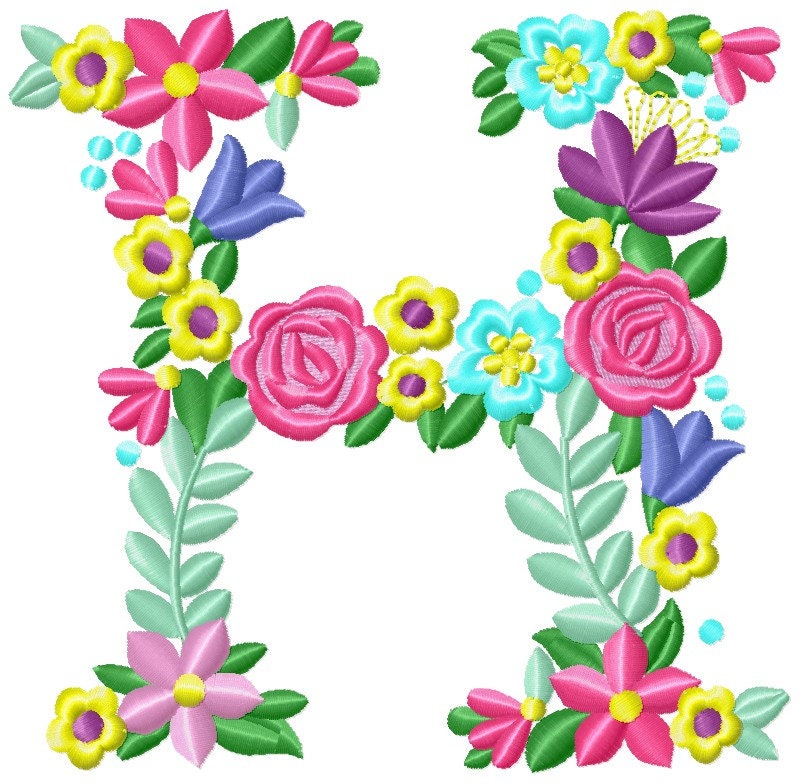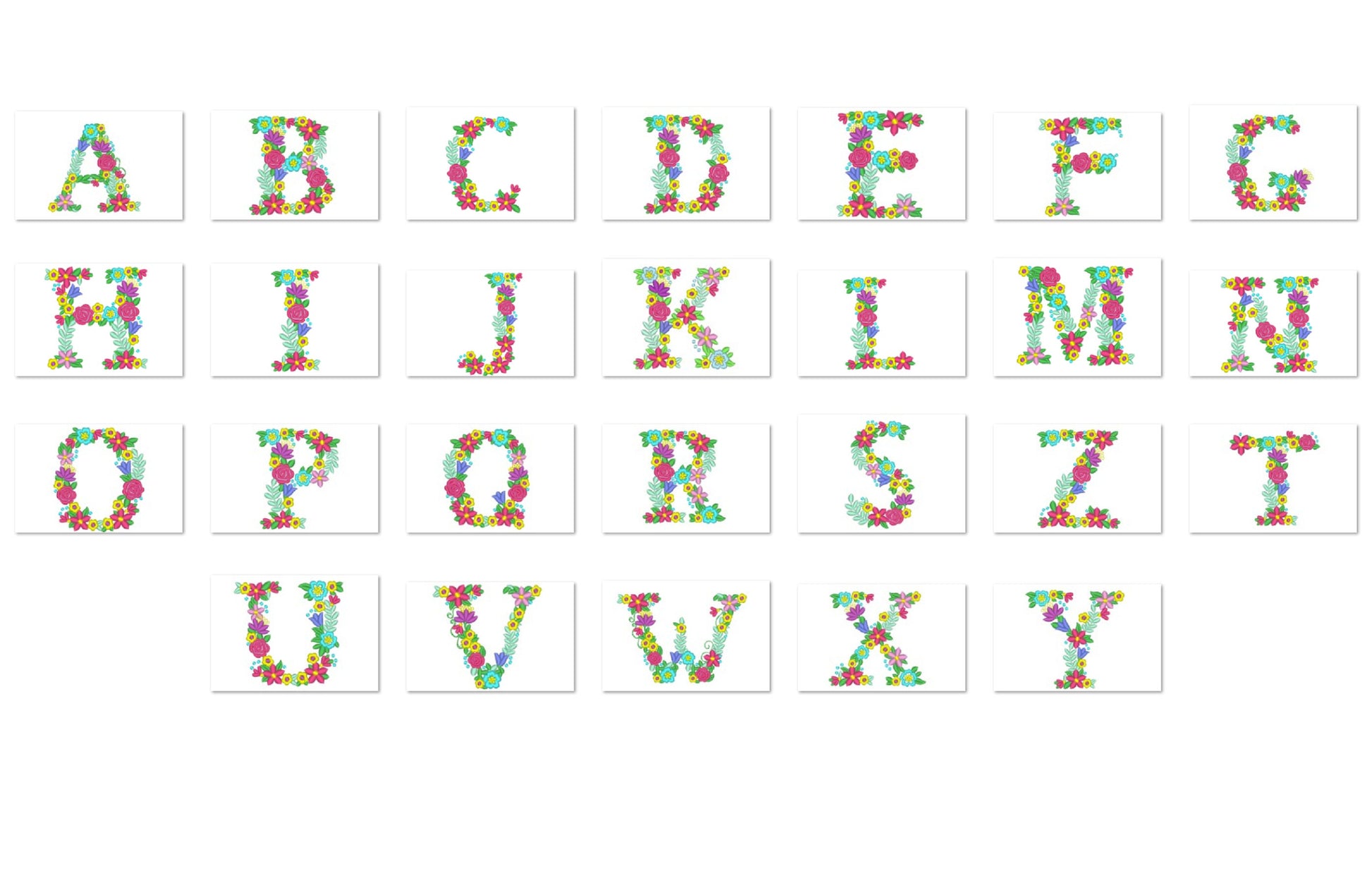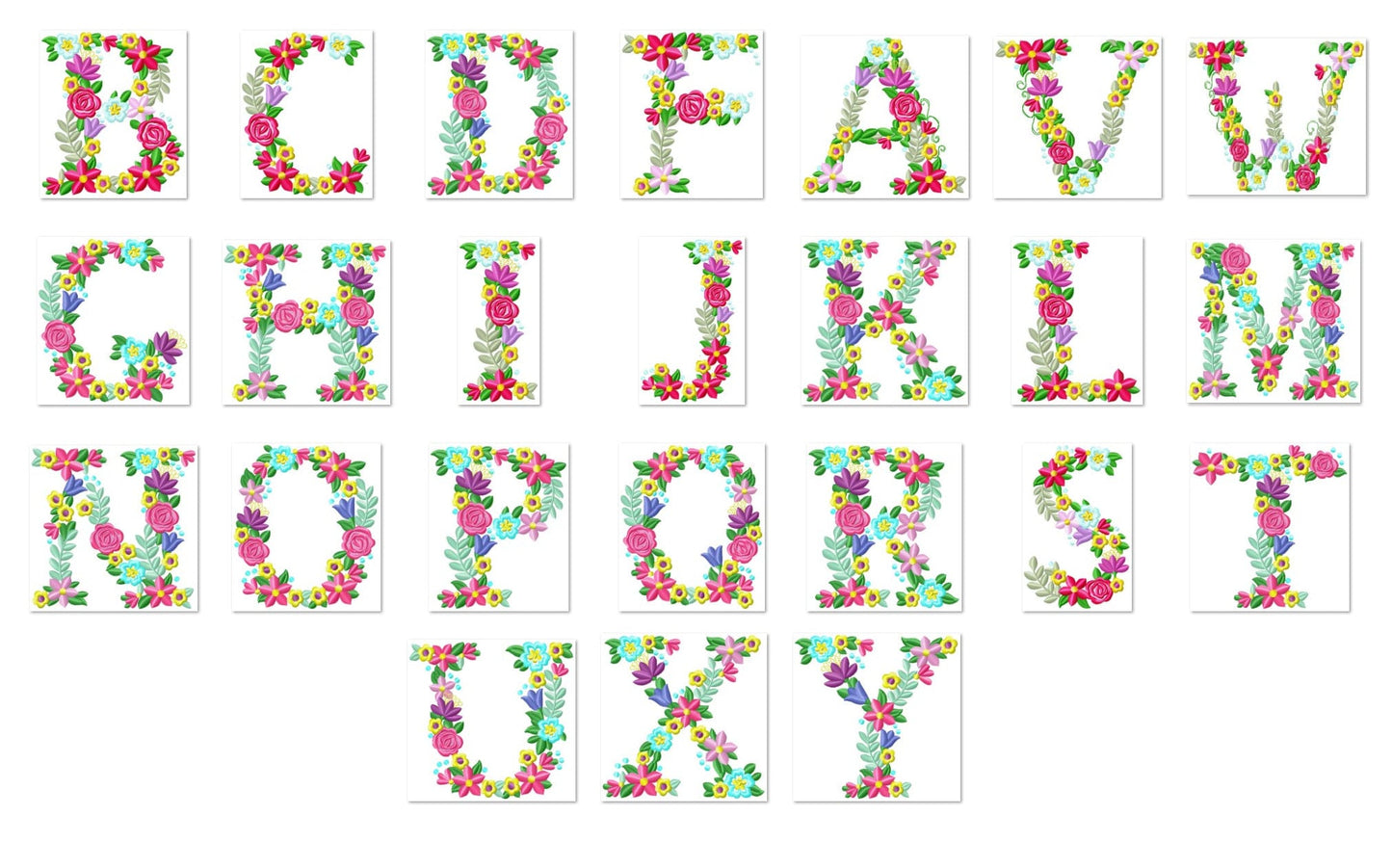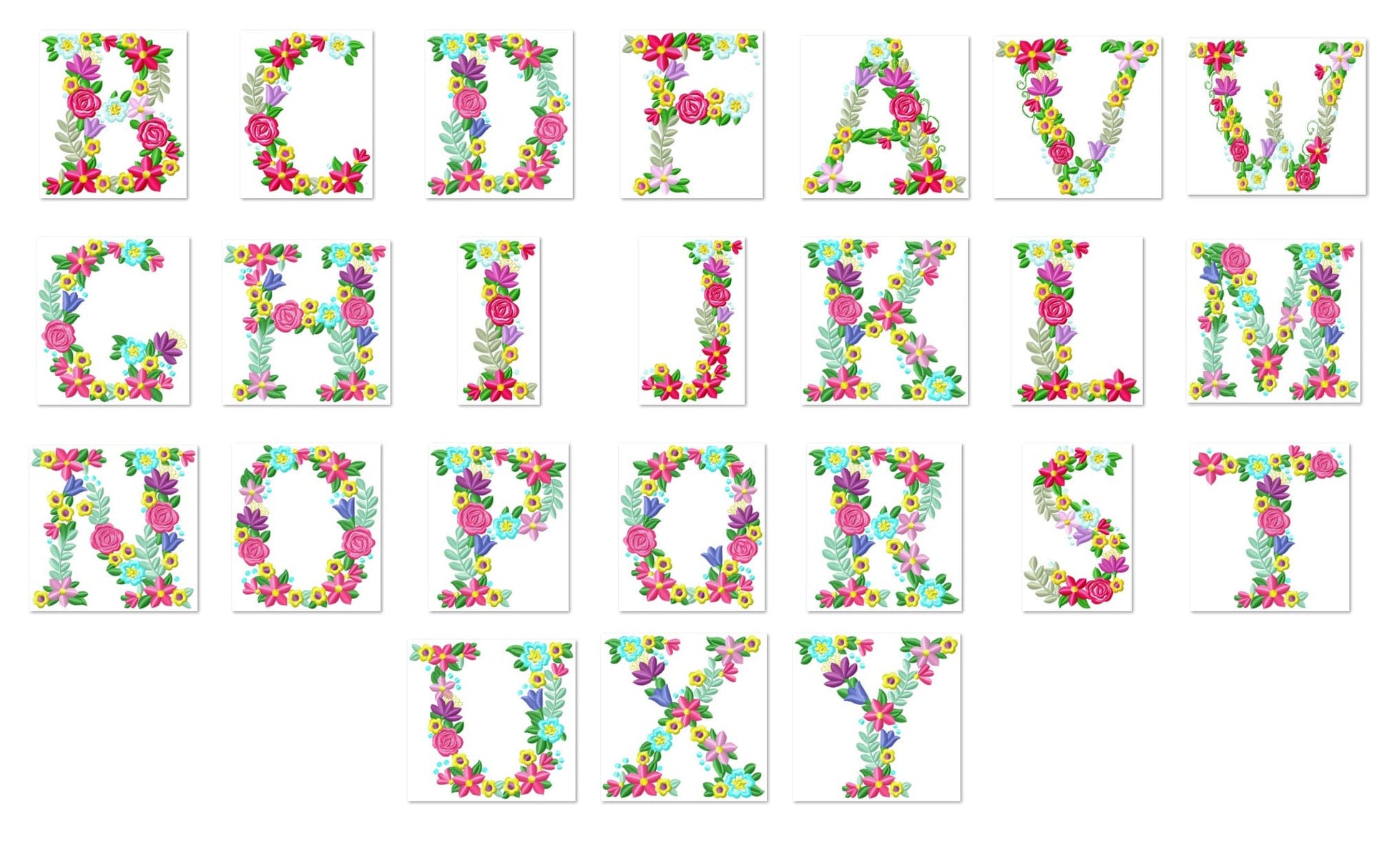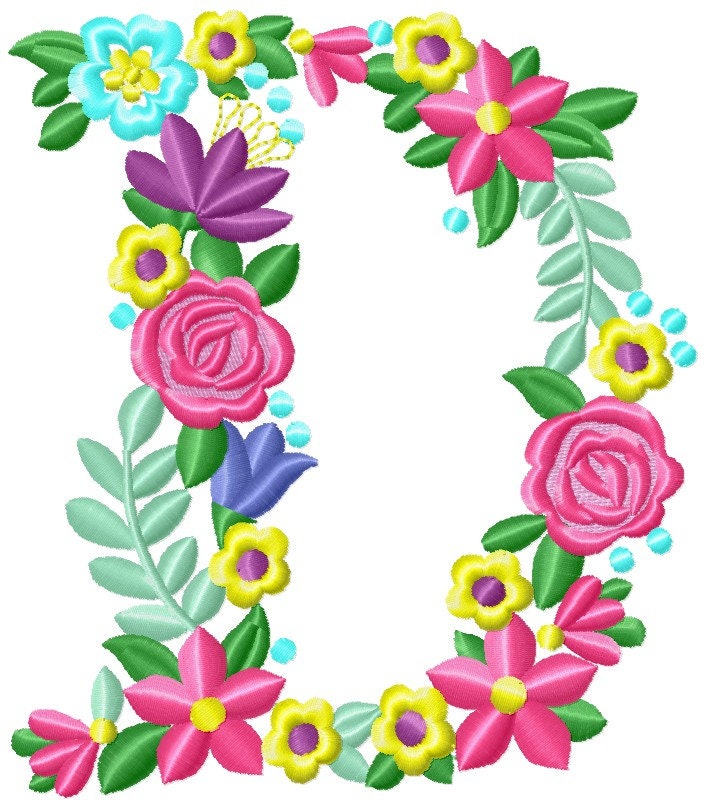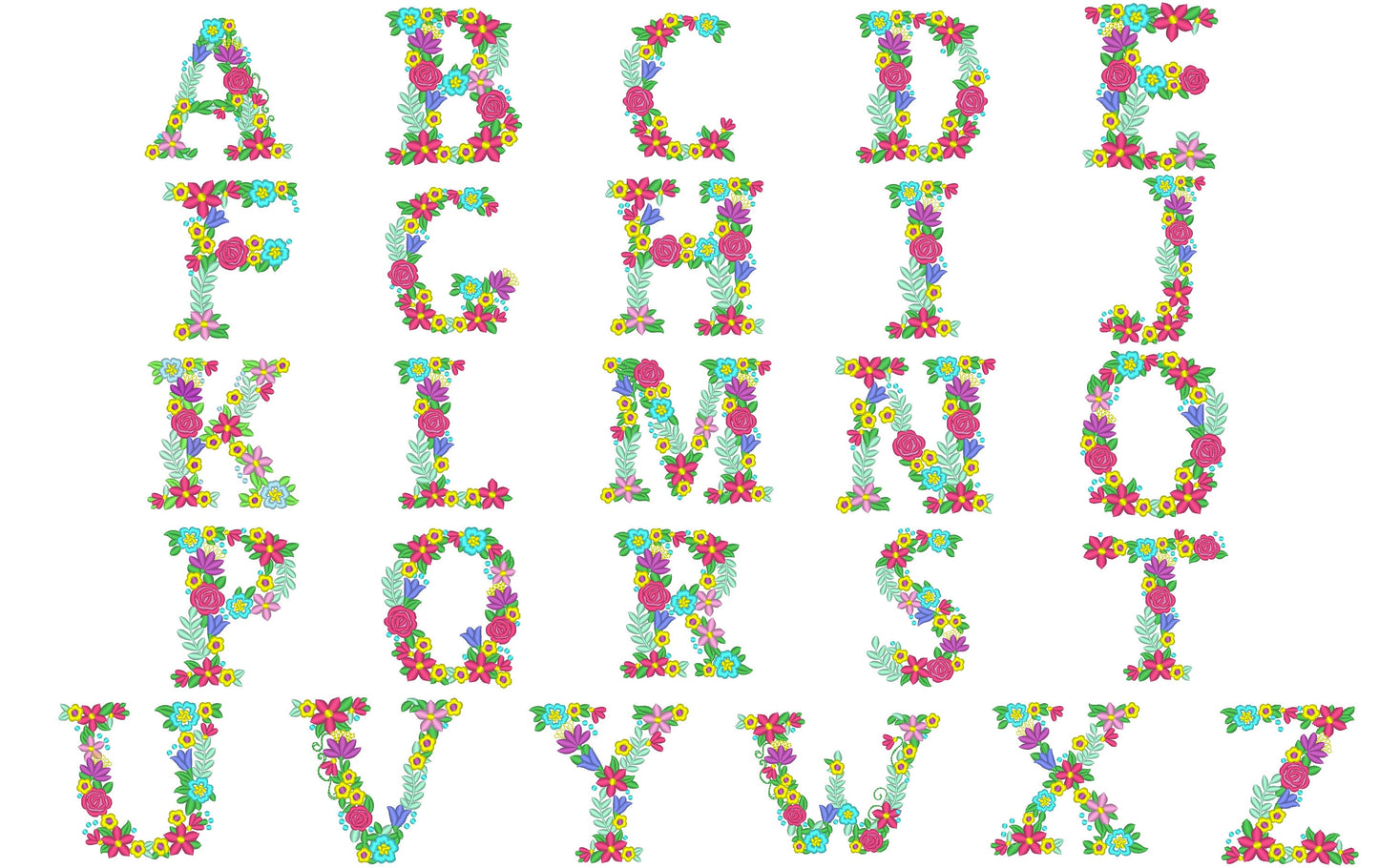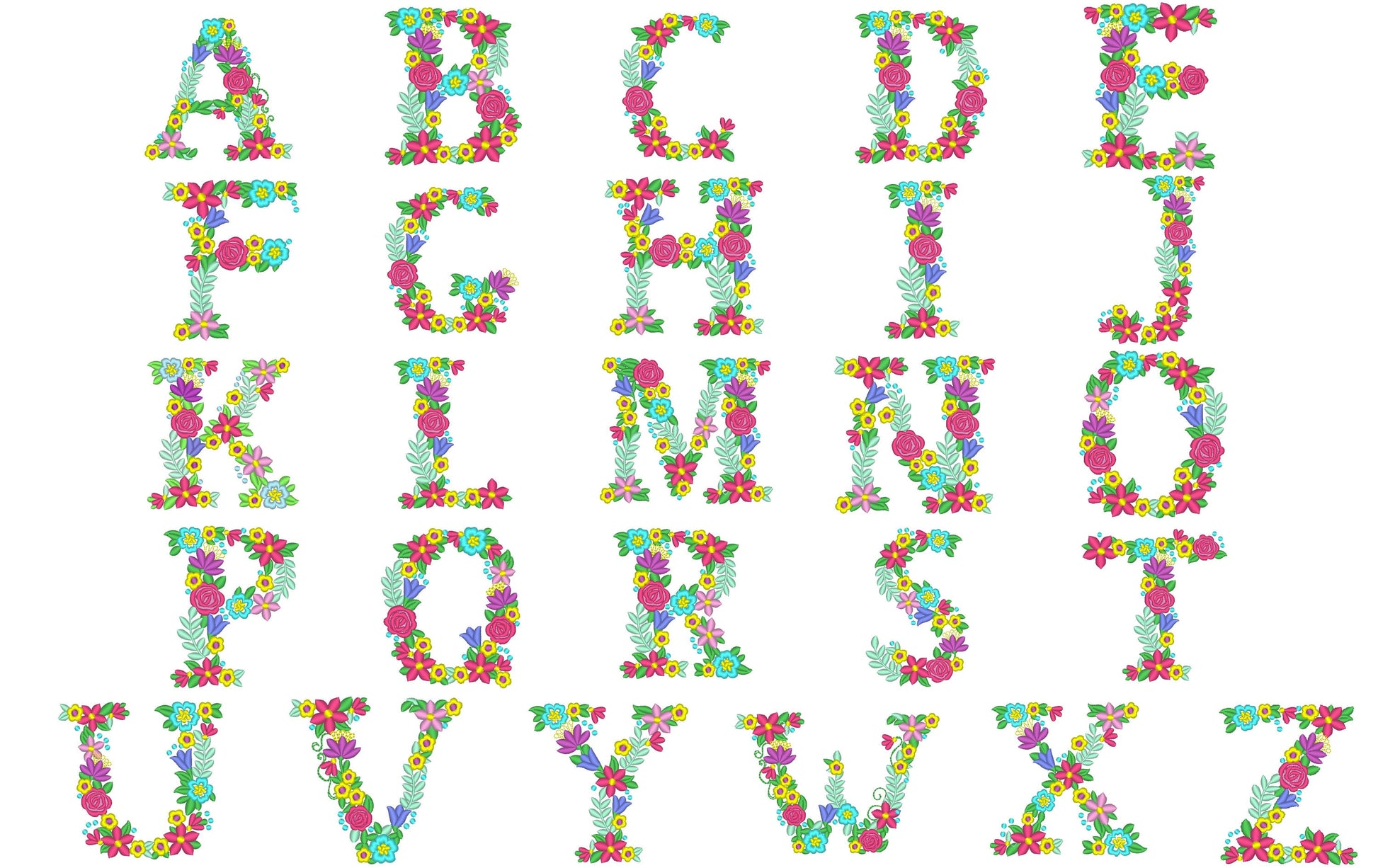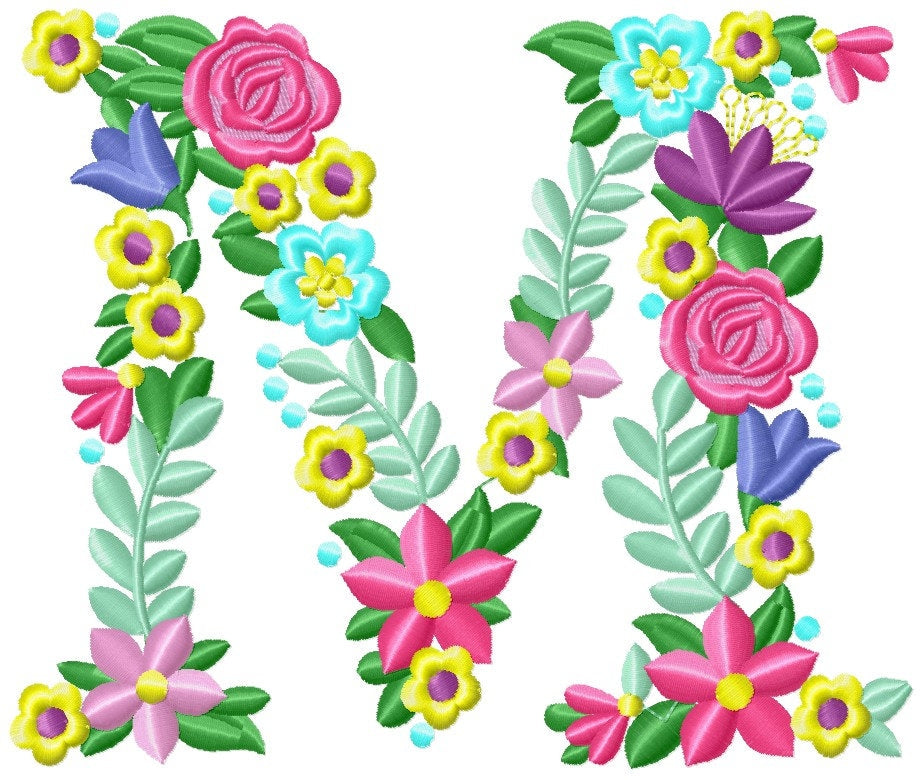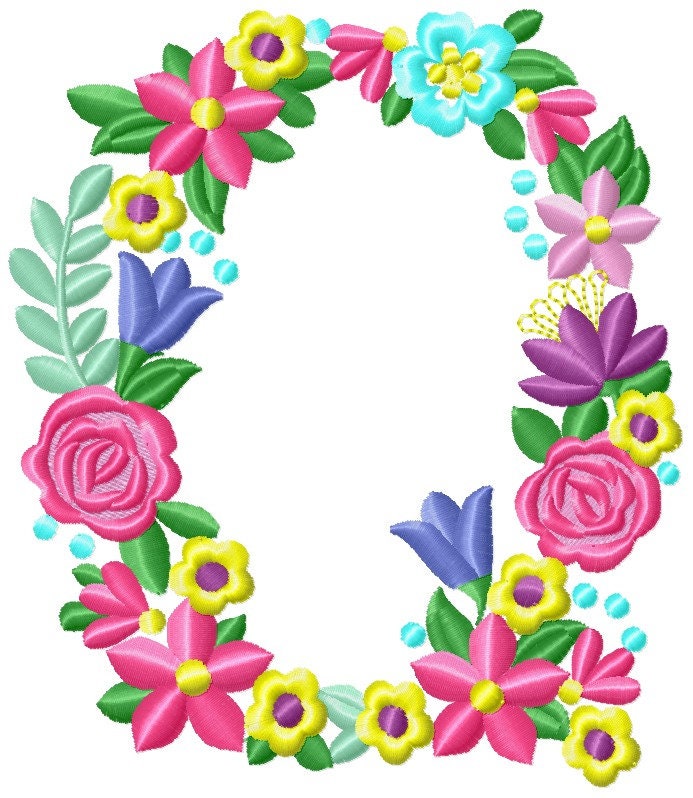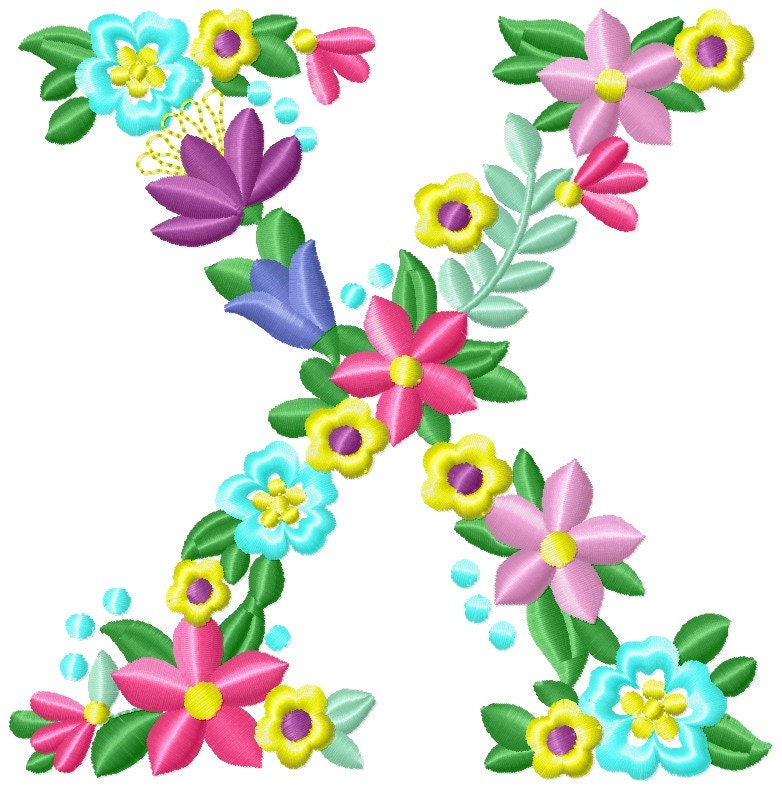
Liberty Garden Floral Font
Or click to open the linkAn old-fashioned liberty style floral font, with every letter covered in garden flowers. Beautiful for garden flags, pillows, towels and big monograms.
Capital letters A to Z in seven sizes: 3.5, 4, 4.5, 5, 5.5, 6 and 7 inches. Only 8 color changes, even with all the flowers.
- Liberty garden floral font
- Capital letters A-Z
- 7 sizes, 3.5 to 7 in